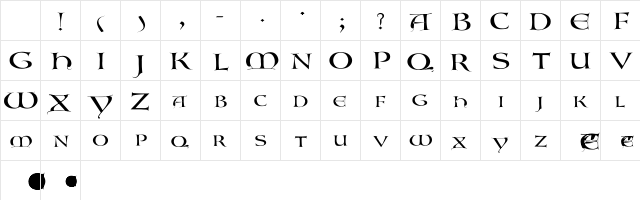
Lombardic-Normal Wd Regular
Design Context for Lombardic-Normal Wd
Lombardic-Normal Wd is a composed and adaptable typeface that performs quietly and consistently across a wide range of design contexts.